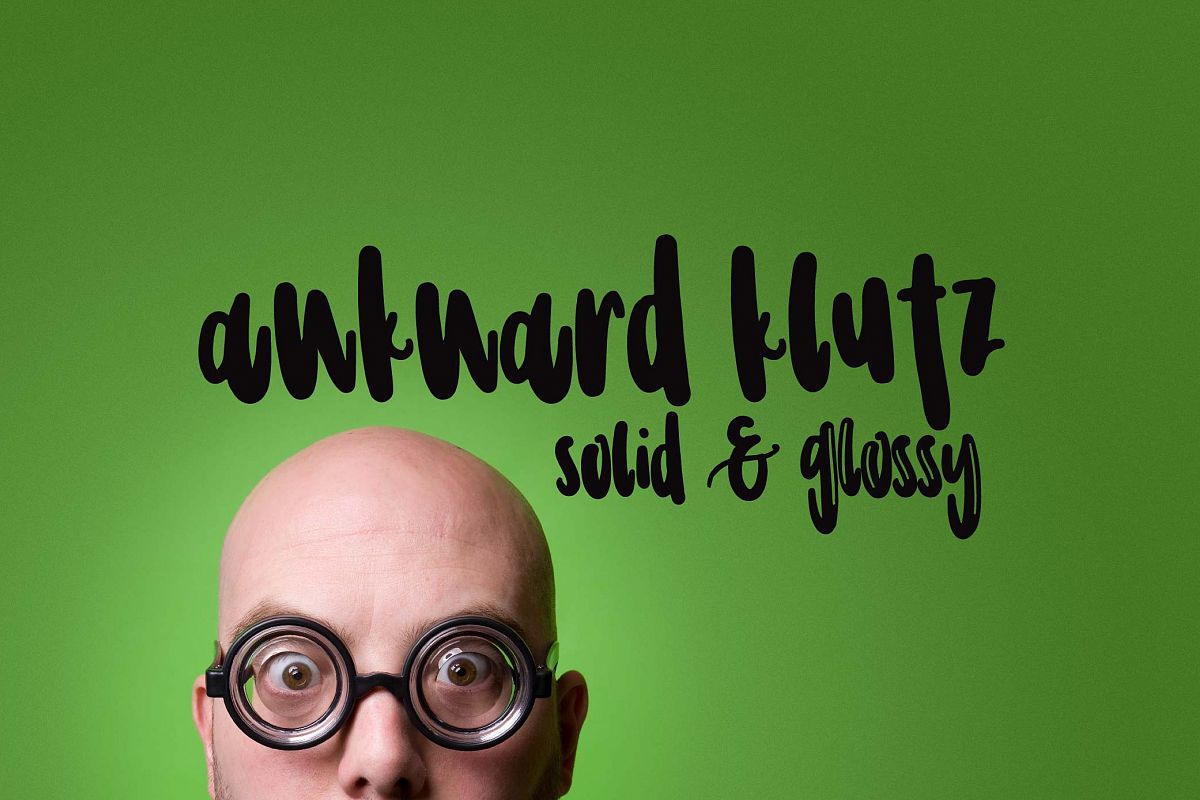
Awkward Klutz
Awkward Klutz is a fun little font including all lowercase letters with limited punctuation. Perfect for tee shits, mugs and more! Includes both solid & glossy versions!